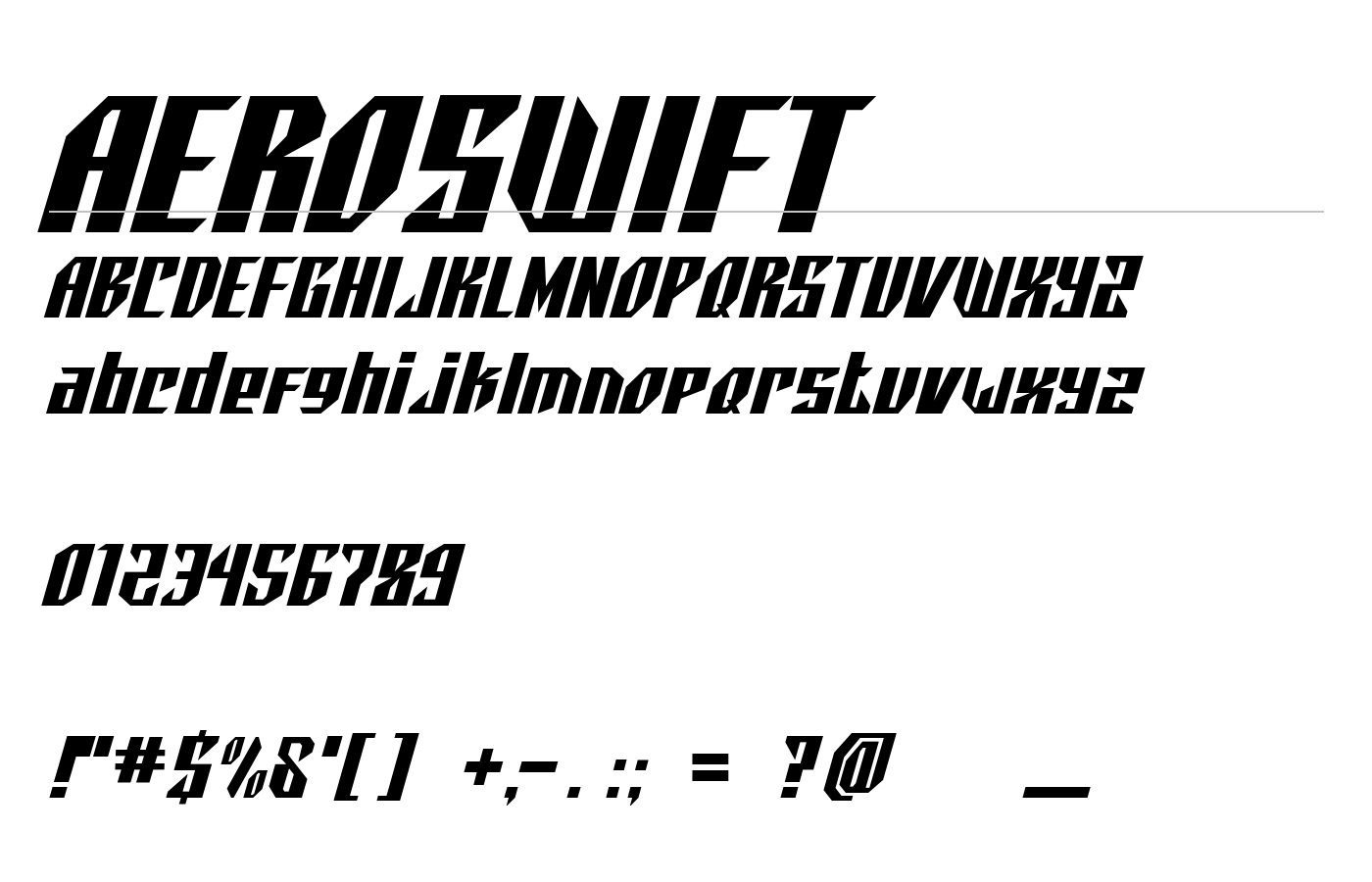
AEROSWIFT is a bold, condensed sans serif font with a strong futuristic and dynamic vibe, featuring sharp angles and a slanted, italicized style that suggests speed and motion. Its high contrast between thick and thin strokes, along with unique angular details in letters like “Q” and “R,” make it perfect for modern, energetic branding, sports logos, and high-impact headlines where a sense of power and agility is desired. This font works best in display use, adding a sleek and cutting-edge look to projects that need a striking, forward-moving personality.
AEROSWIFT Font